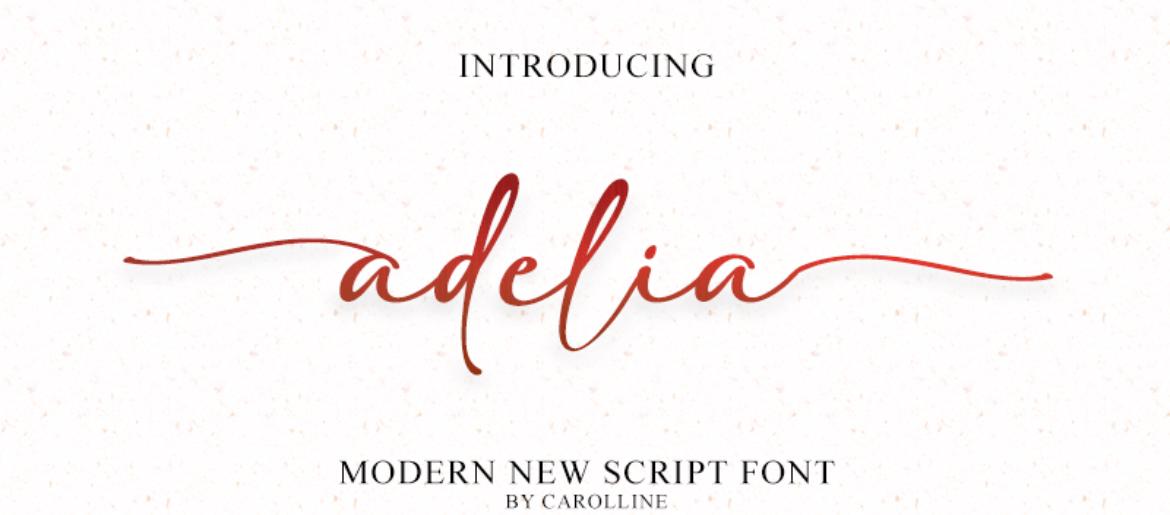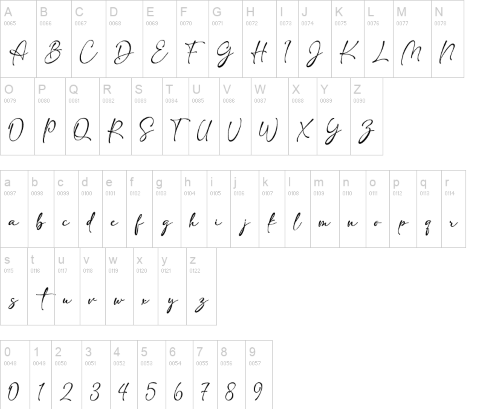
Adelia Font
Adelia Font is a beautiful, flowing script typeface with soft curves and elegant strokes. Its romantic, handwritten style makes it perfect for wedding designs, invitations, logos, quotes, and feminine branding. Adelia adds warmth, grace, and a delicate personal touch to any creative project.
➤ Font Name:  Adelia
➤ Designer: Carroline Typography
➤ Style: Script > Calligraphy